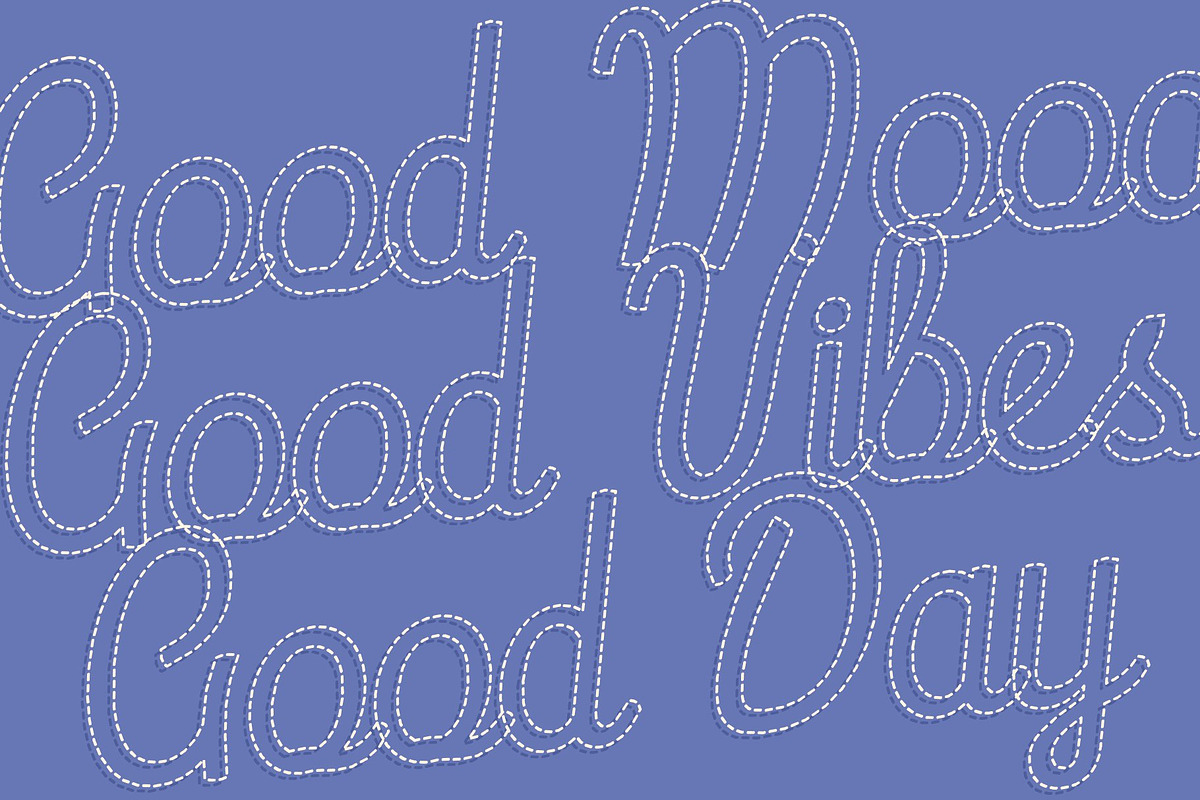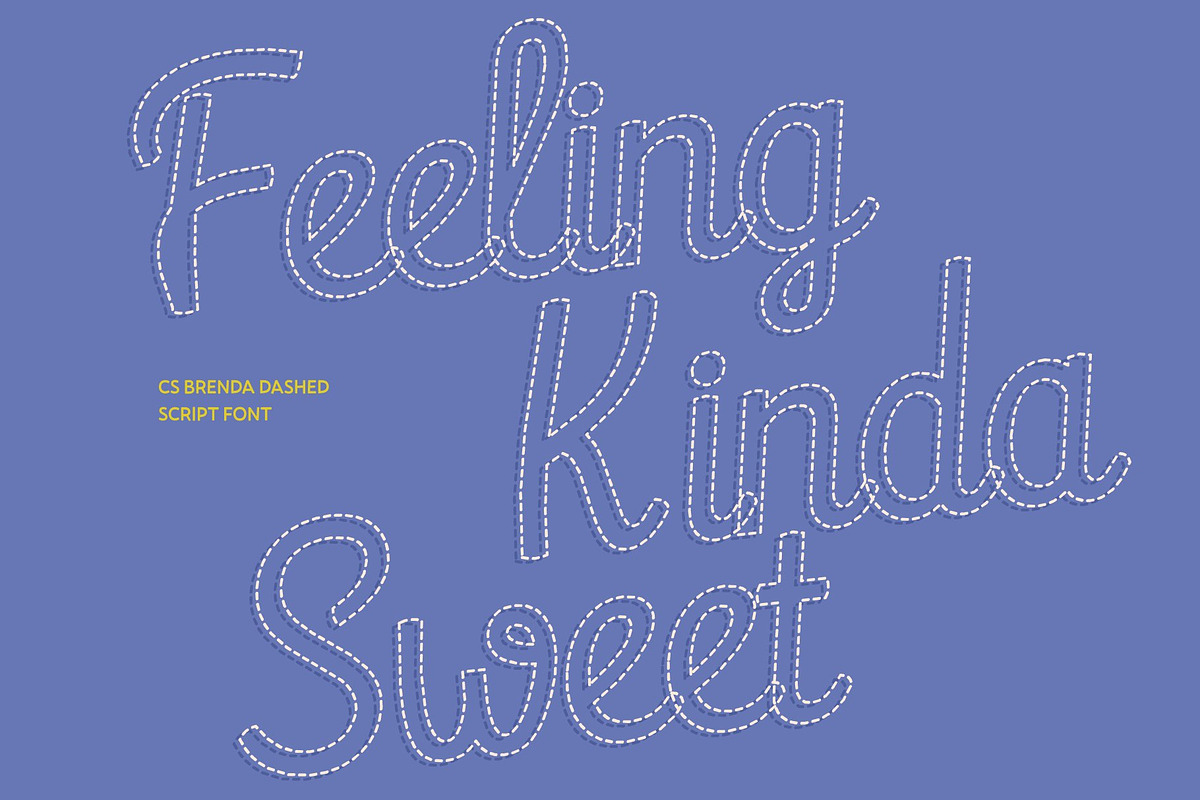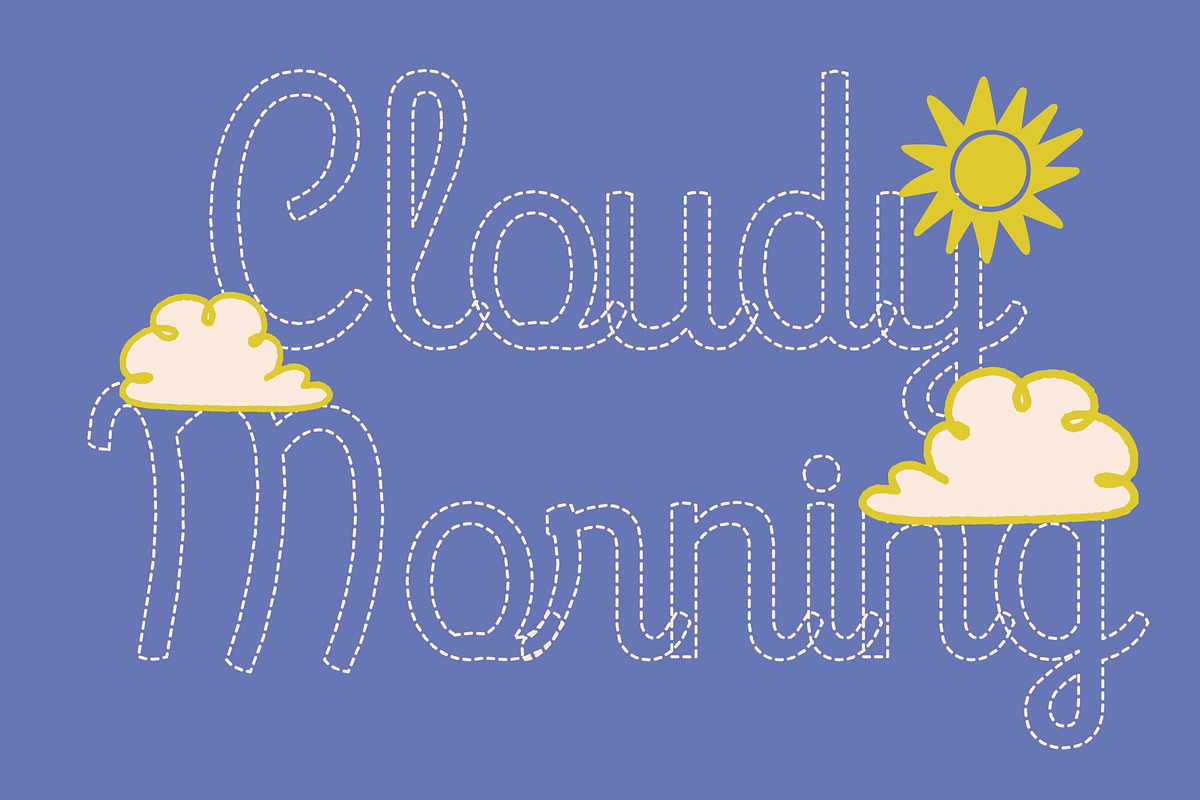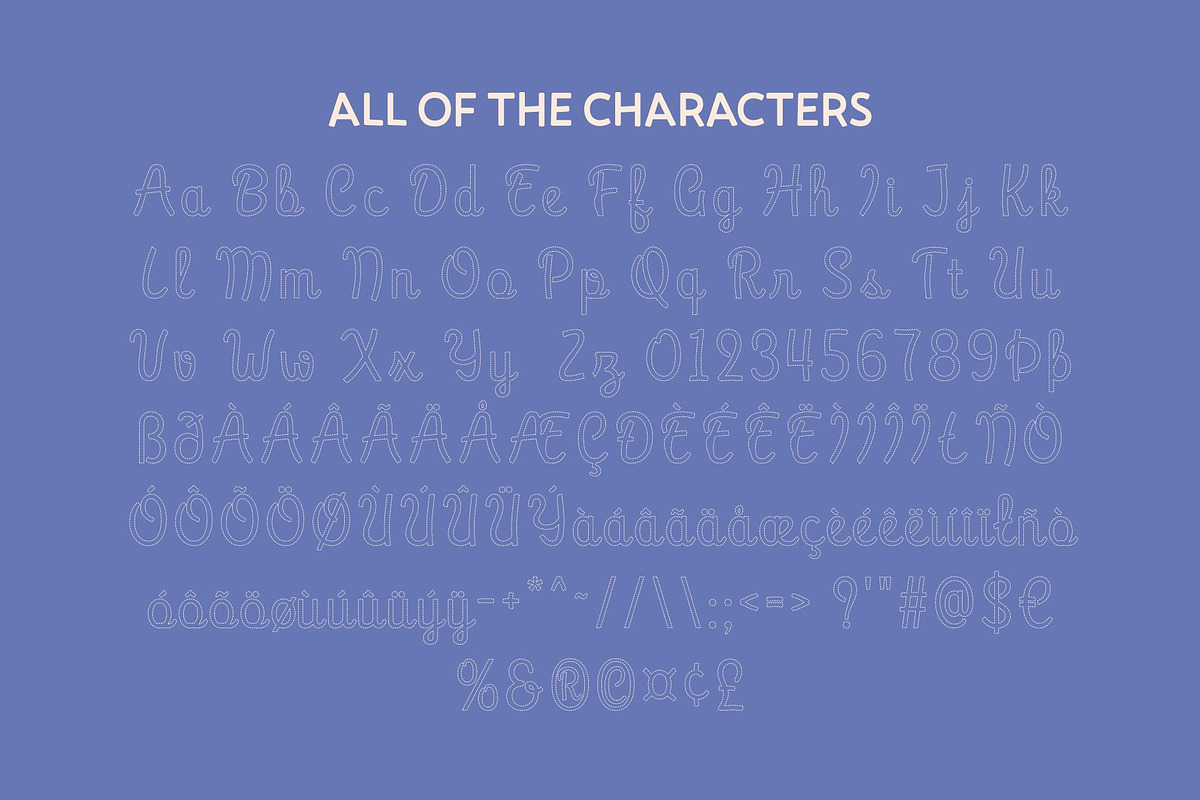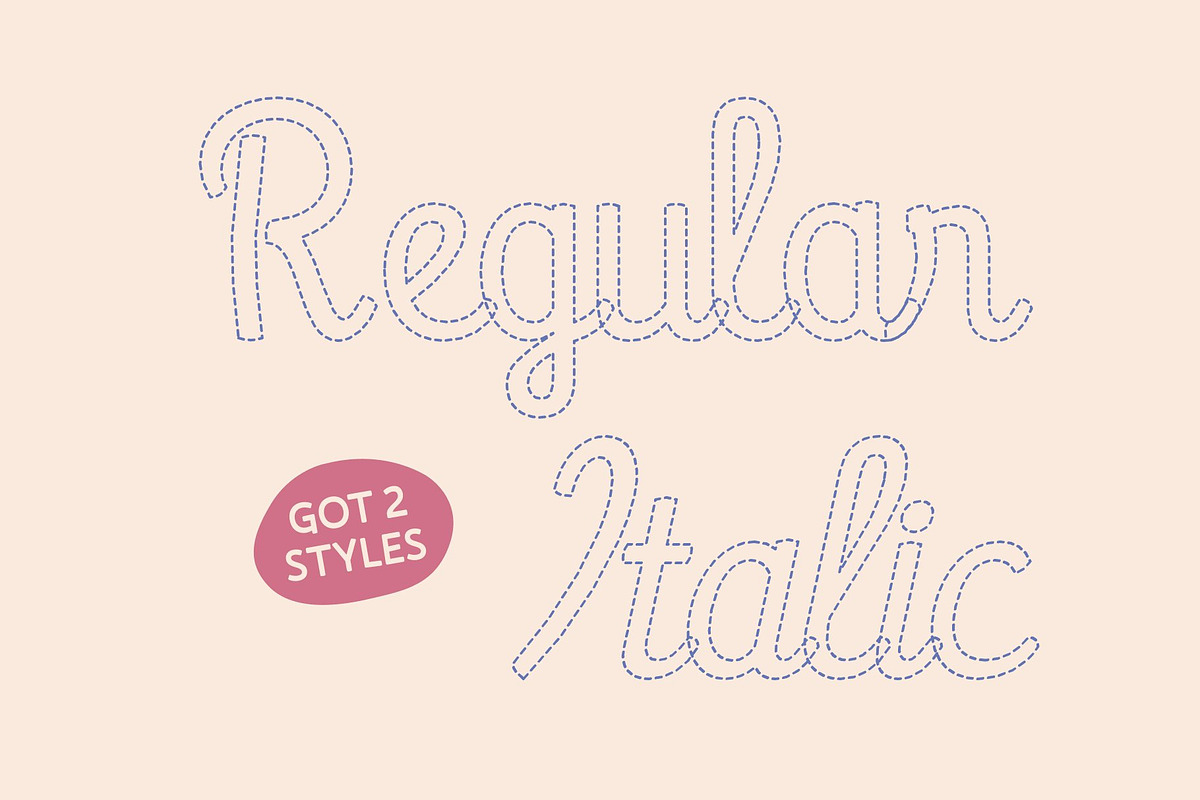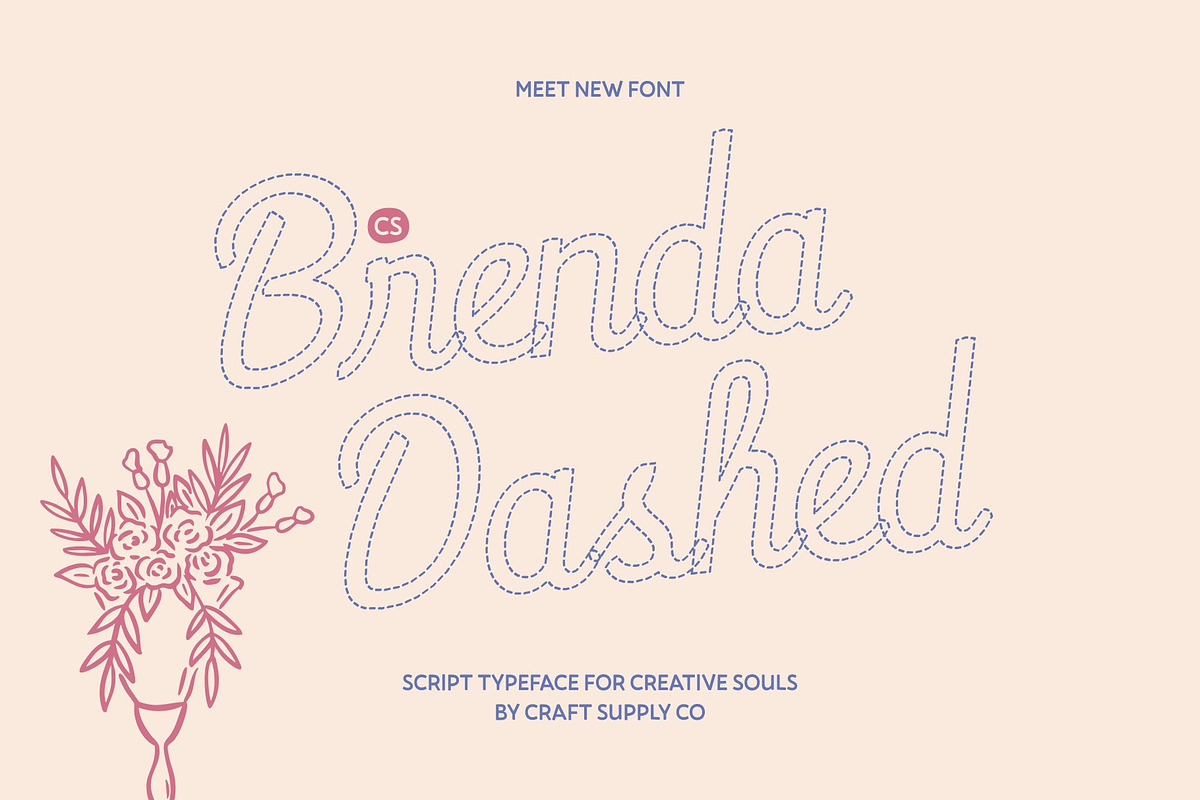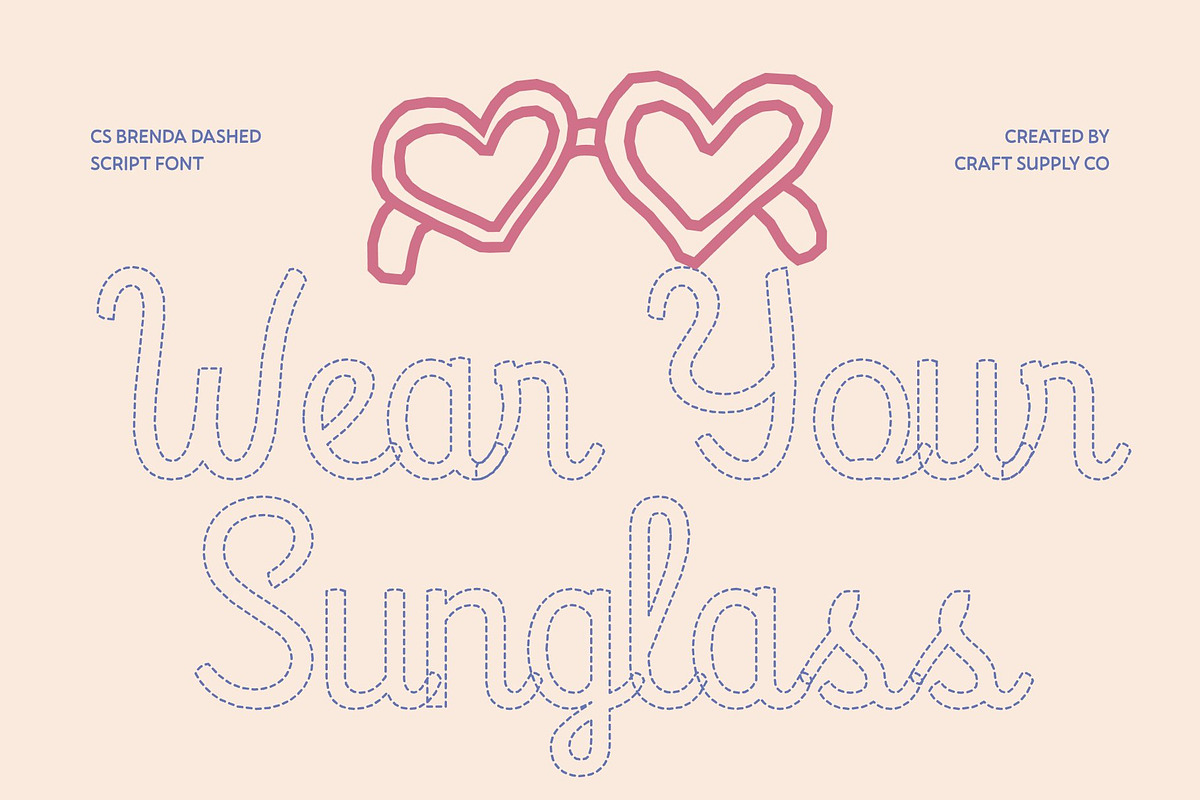
CS Brenda Dashed
CS Brenda Dashed – Script Font: Where Minimalism Meets Sweet Elegance
Contemporary Minimalist Style This is a modern script font that embraces a clean, minimalist handwritten aesthetic. Each character flows smoothly with refined simplicity, creating a polished look while preserving the charm of personal handwriting. The dashed styling transforms the strokes into delicate broken lines, adding a light, creative texture that feels relaxed and expressive.
Beautiful and Aesthetic Flow Designed with soft curves and graceful movement, this font delivers a sweet and charming visual rhythm. The balance between playful warmth and professional elegance makes it perfect for projects that aim to feel feminine, modern, and approachable. Its gentle dashed strokes create a harmonious layout with a subtle handcrafted feel.
Perfect for Trendy and Feminine Designs Whether used for beauty packaging, café menus, wedding invitations, or social media graphics, this font adds a stylish and contemporary touch. Its friendly handwritten style helps designs feel personal, inviting, and visually appealing.
Versatile and Stylish Across Media From branding and packaging to lifestyle blogs and aesthetic quotes, this font adapts effortlessly across print and digital formats. Its neat structure, modern flow, and airy dashed texture make it an excellent choice for designers who want to express elegance with personality and creative charm.
CS Brenda Dashed Regular
CS Brenda Dashed Italic